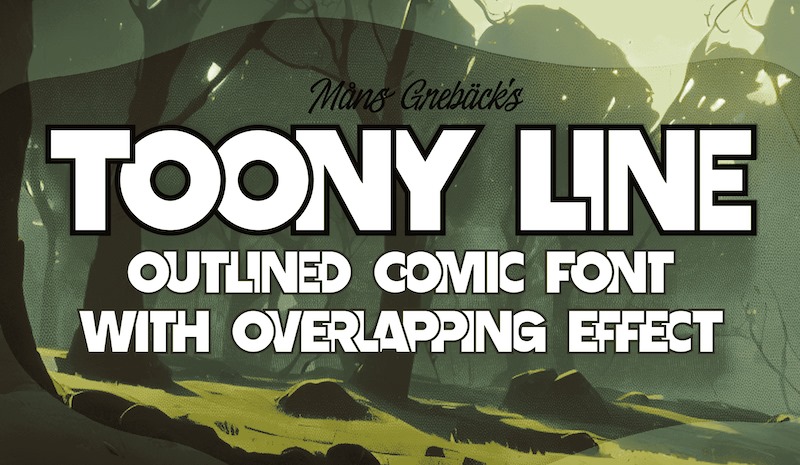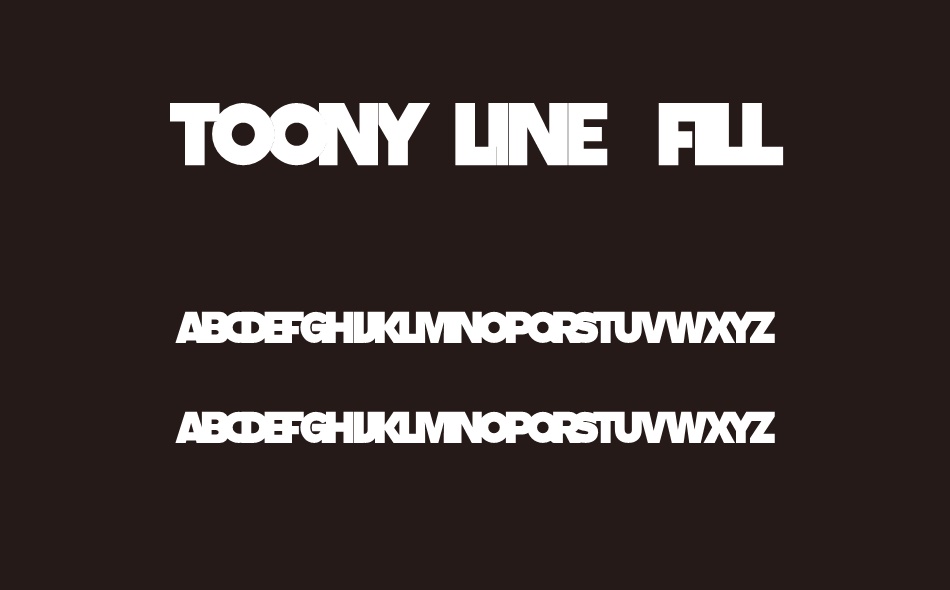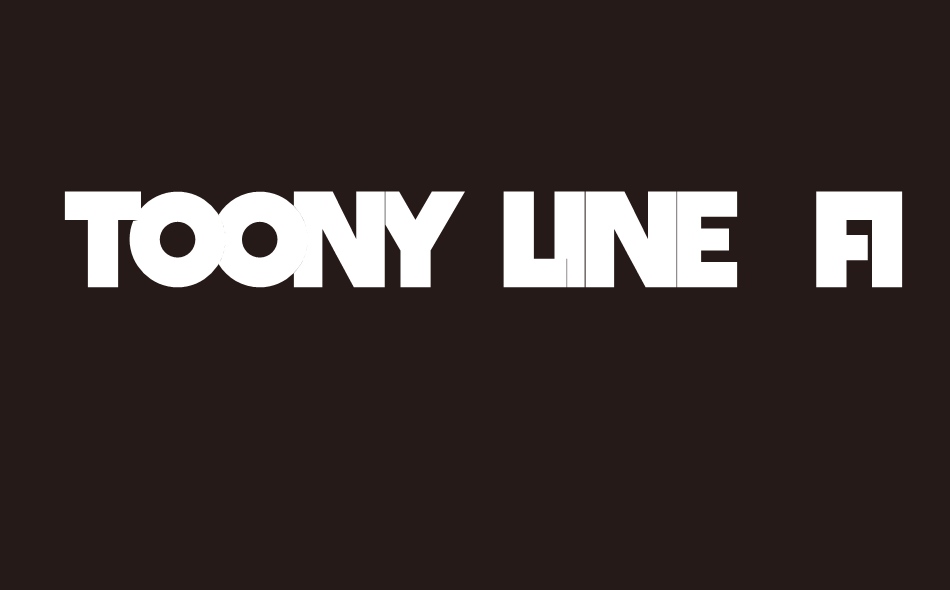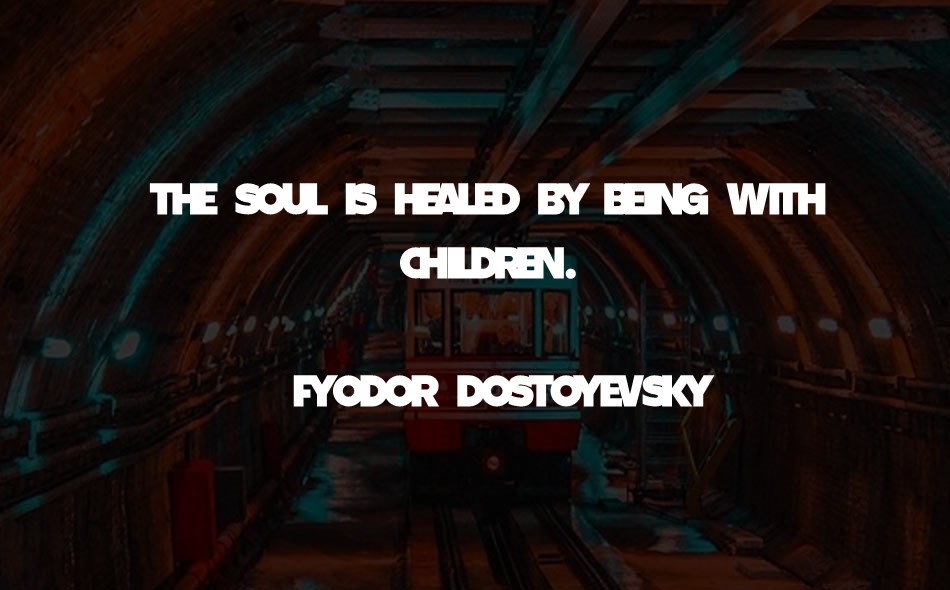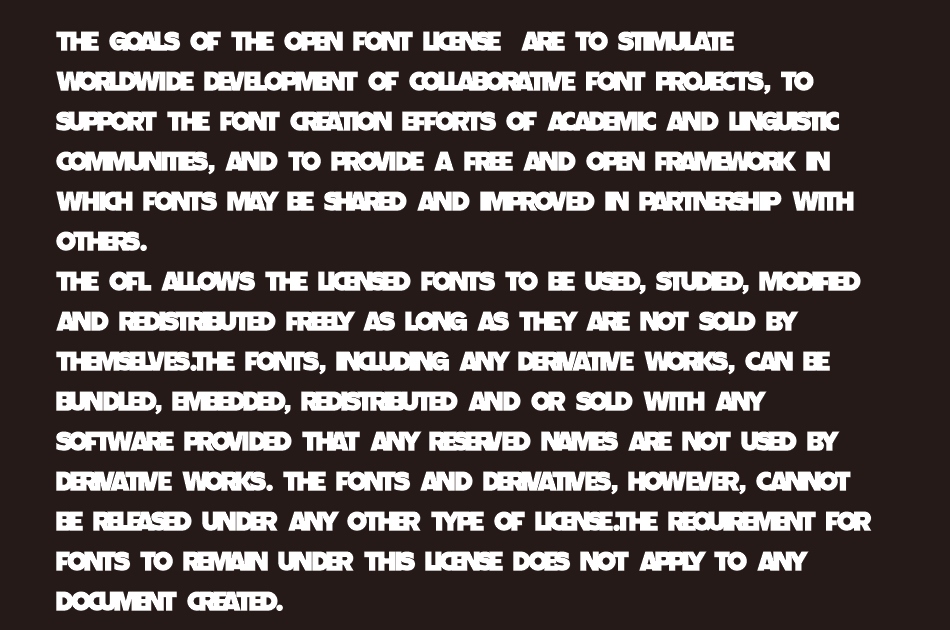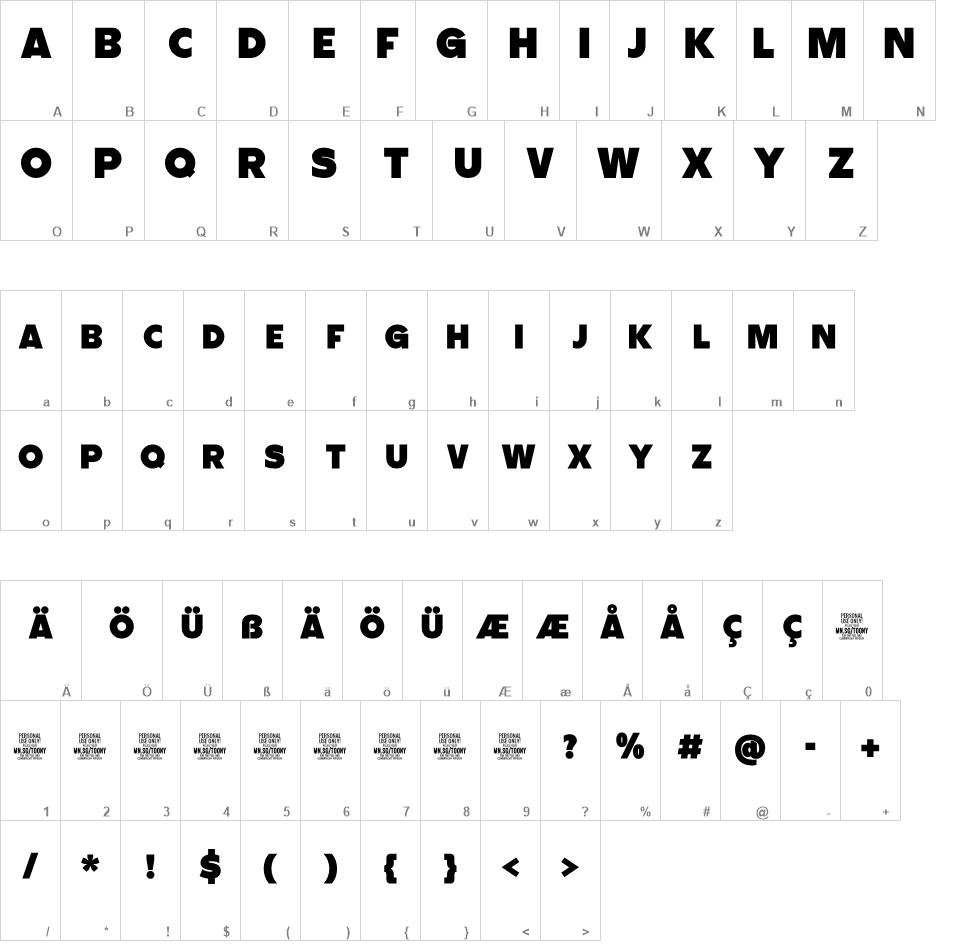
Toony Line font
Toony Line is a comic font from the golden age of cartoons.
Funny and loony, the font channels playful tunes while its sharp, sans-serif characters dance on the page with a joy reminiscent of our favorite animated classics. There's a hint of Mickey's magic, a dash of Disney dreaminess, and the unapologetic boldness of comic strips and street art.
Toony Line is a comic font that feels like a delightful throwback to the golden age of cartoons.
Funny and loony, the font channels playful tunes while its sharp, sans-serif characters dance on the page with a joy reminiscent of our favorite animated classics. There's a hint of Mickey's magic, a dash of Disney dreaminess, and the unapologetic boldness of comic strips and street art. But what sets Toony Line apart is its intricate overlapping effect, made possible by sophisticated OpenType.
This isn’t just a typeface; it’s a trip down memory lane, reinventing the retro and fun for modern marvels.
The font is built with advanced OpenType functionality and has a guaranteed top-notch quality, containing stylistic and contextual alternates, ligatures, and more features; all to give you full control and customizability. It has extensive lingual support, covering all Latin-based languages, from Northern Europe to South Africa, from America to South-East Asia. It contains all characters and symbols you'll ever need, including all punctuation and numbers.
With every font he crafts, Toony's creator Mans Greback doesn't just design; he tells a story. His ability to weave emotion and complex functions into a single typeface ensures top quality results that leaves an imprint in all projects.